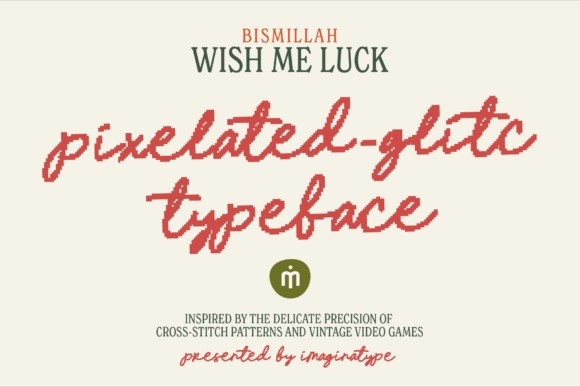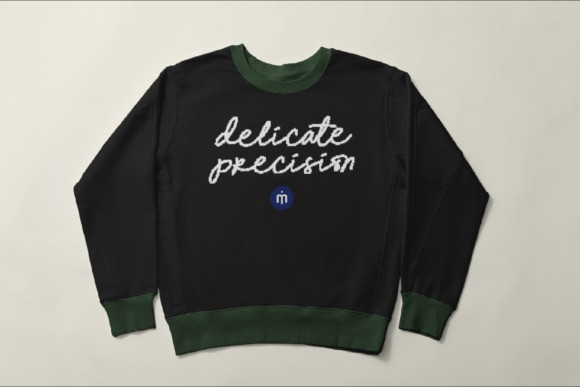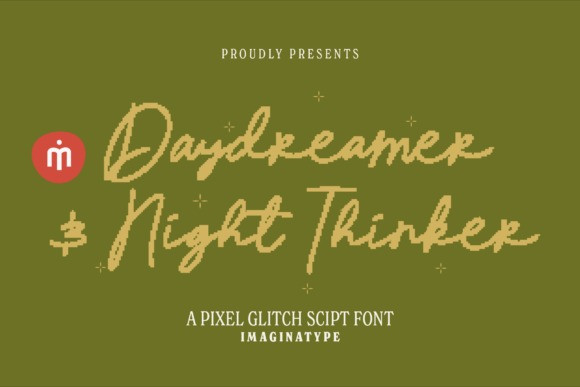
Daydreamer & Night Thinker Font
Daydreamer & Night Thinker Font a pixel glitch script font that perfectly balances the warmth of human touch with the cool edge of digital retro aesthetics.Inspired by the delicate precision of vintage cross-stitch patterns and the golden era of 8-bit video games, this typeface creates a stunning visual paradox. It appears as a fluid, hand-written signature from afar, but reveals its intricate, jagged pixel construction upon closer inspection. It is a typeface designed for those who live in the intersection of analog memories and digital realities.
Daydreamer & Night Thinker is more than just a display font, it is a storytelling tool. It captures the essence of “glitch art” where imperfection becomes the ultimate form of expression. This makes it an impeccable choice for Y2K-inspired branding, indie game UI, streetwear merchandise, lo-fi music covers, and modern cross-stitch templates.
Whether you are designing a playful quote that needs a tech-savvy twist or a bold logo that demands a second look, this pixelated typeface delivers a unique character that is both quirky and deeply sentimental.